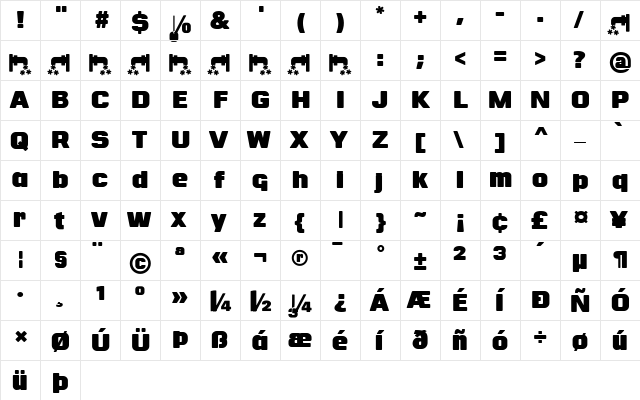
Fontanero Regular
| Foundry | deFharo |
| Designer | Fernando Haro |
Design Context for Fontanero Typeface
Fontanero is a composed and adaptable typeface that performs quietly and consistently across a wide range of design contexts.